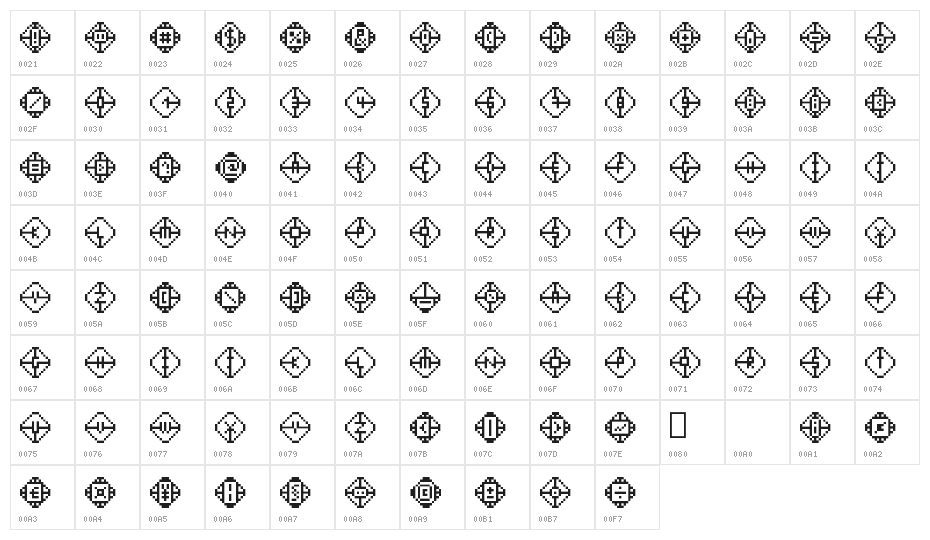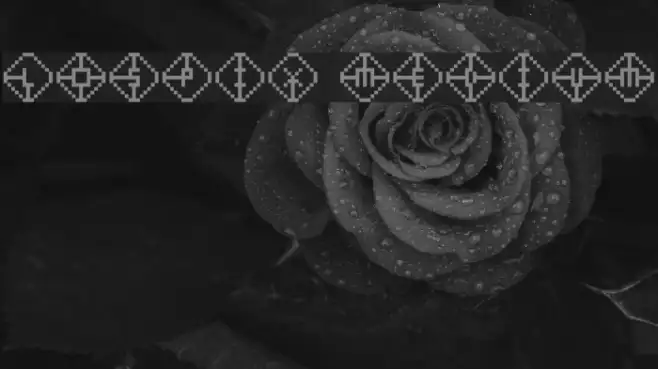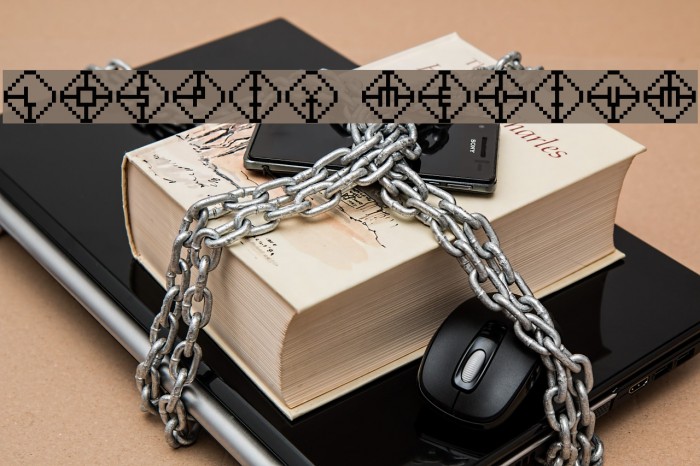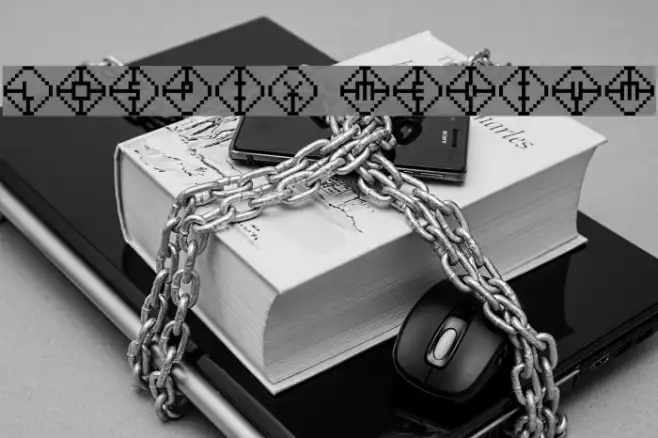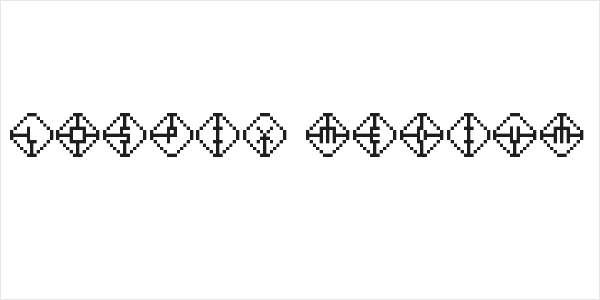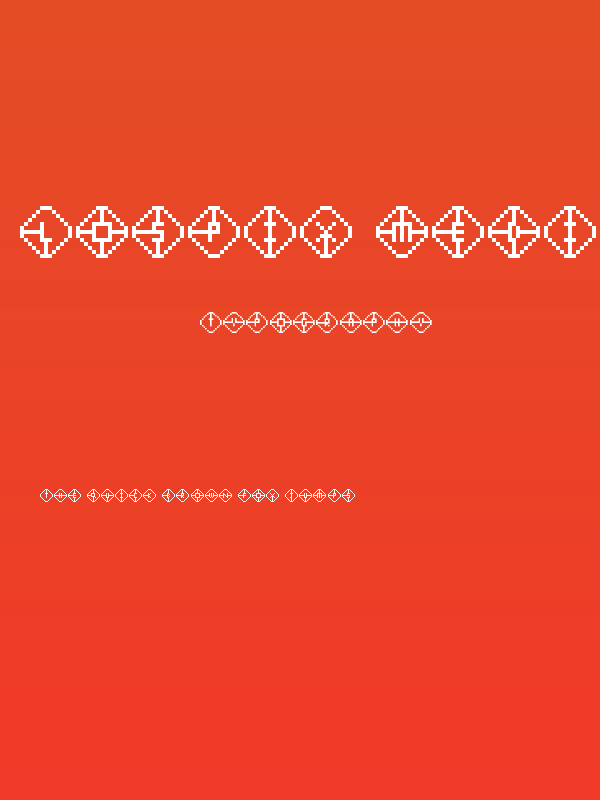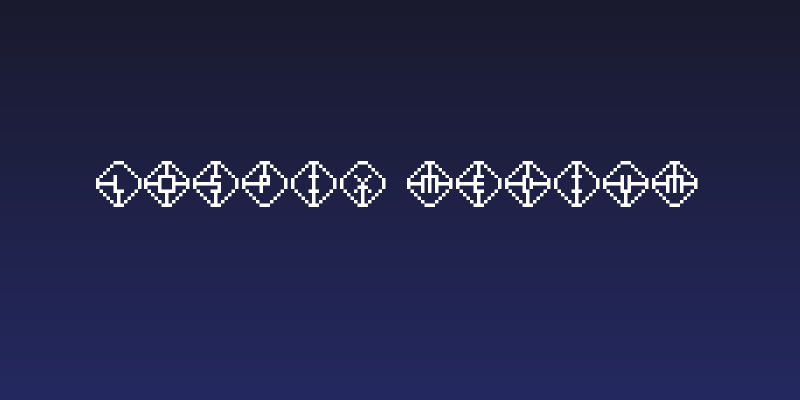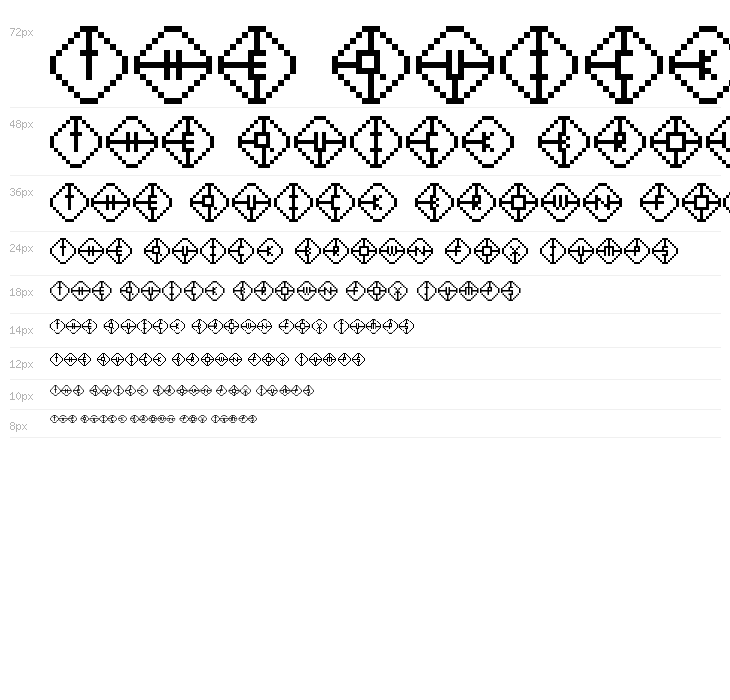
LosPix Medium Font
LosPix Medium Description
This font features a unique and intricate design where each character is encapsulated within a diamond shape, giving it a pixelated and geometric appearance. The characters are constructed with a series of straight lines and right angles, creating a highly stylized and decorative look. The font maintains a consistent structure across all characters, with each letter and number fitting neatly within the diamond framework. This design choice results in a uniform and cohesive visual style that is both modern and reminiscent of early digital typography. The pixelated nature of the font suggests a retro, tech-inspired aesthetic, making it ideal for projects that aim to evoke nostalgia or a digital theme.
| Overall Style | Modern, Retro |
| Use Case | Logos, Headlines, Digital Art |
| Proposed Projects | Ideal for video game graphics, tech-themed posters, digital art projects, and retro-inspired designs. |